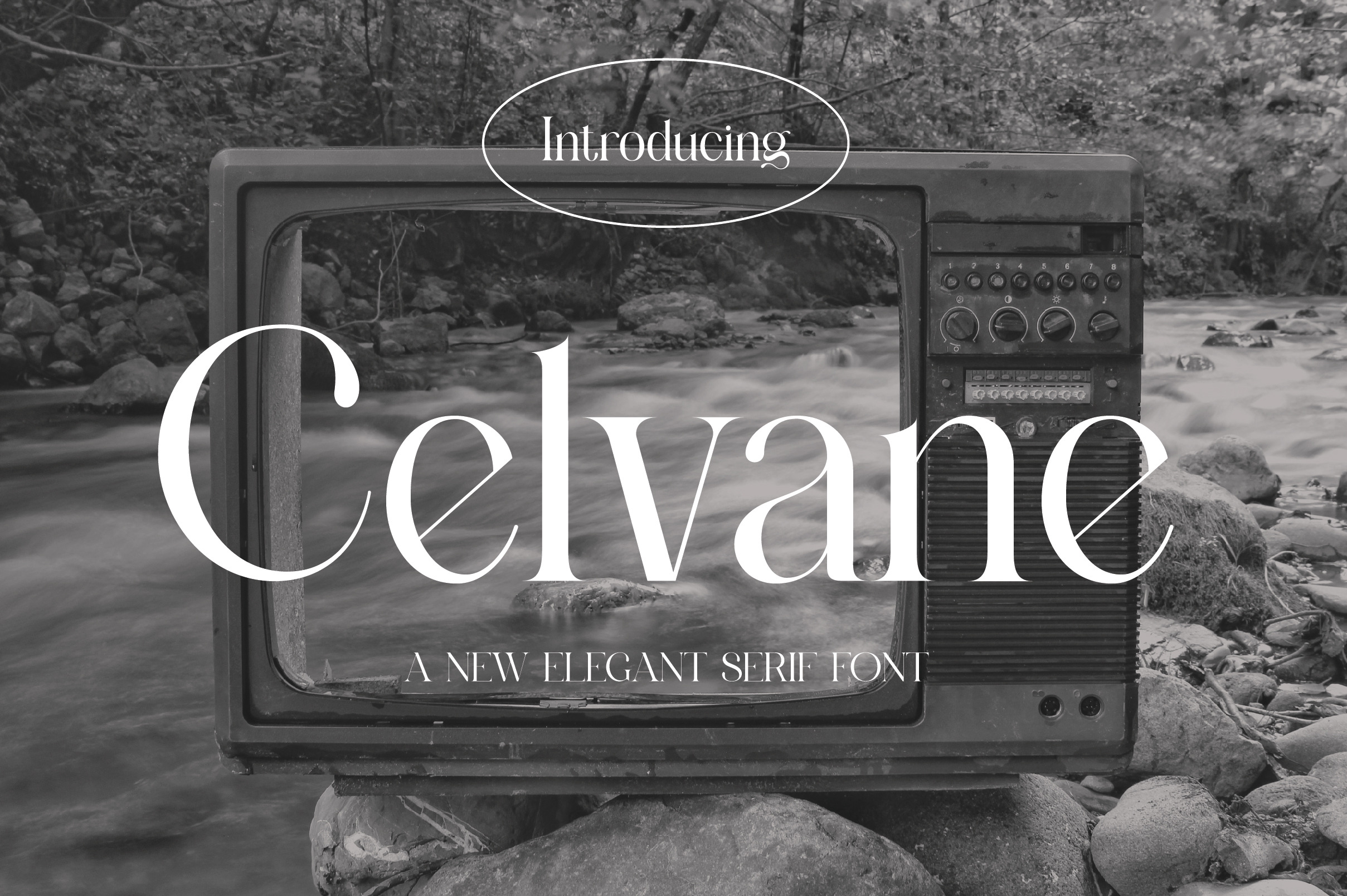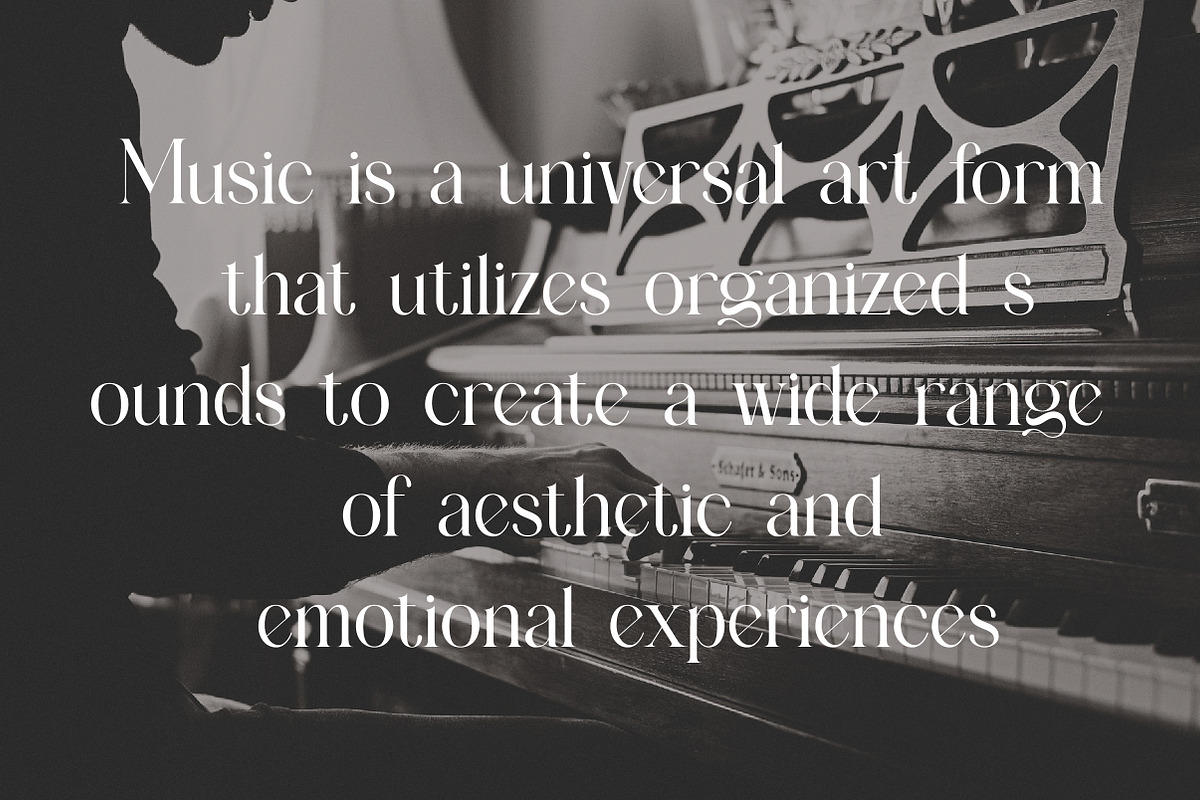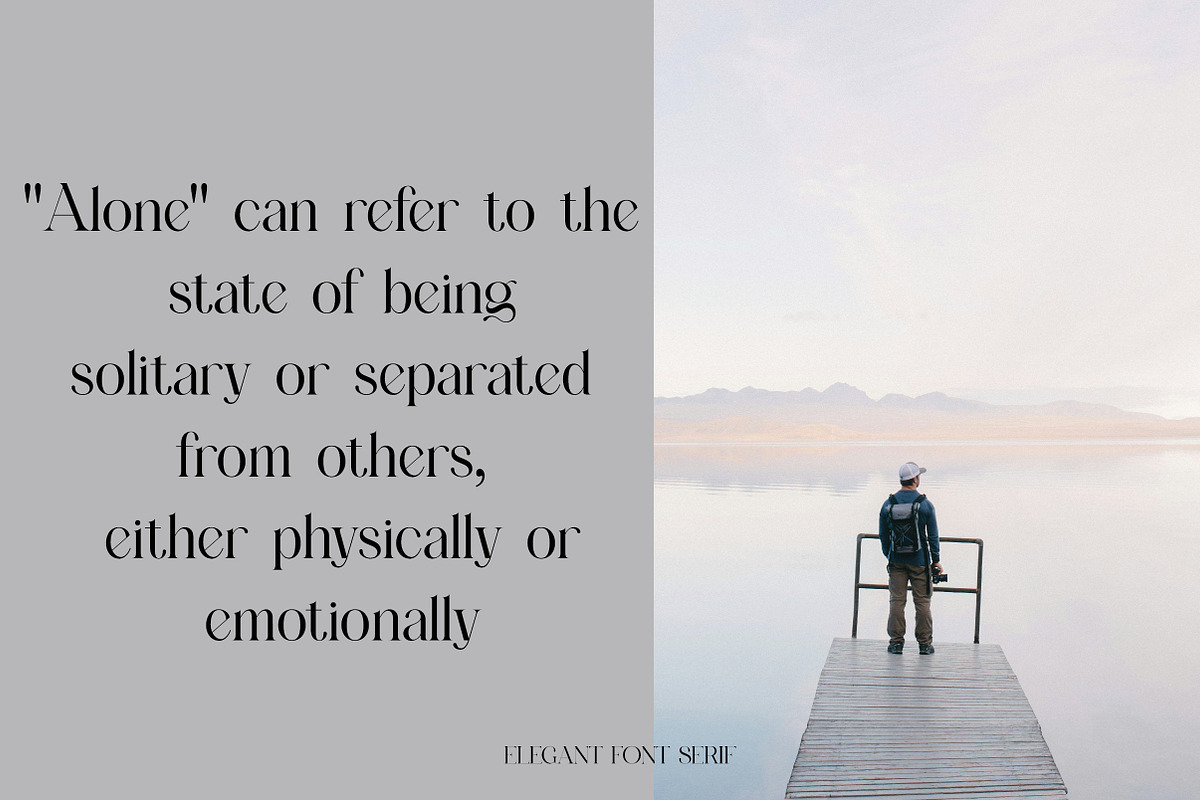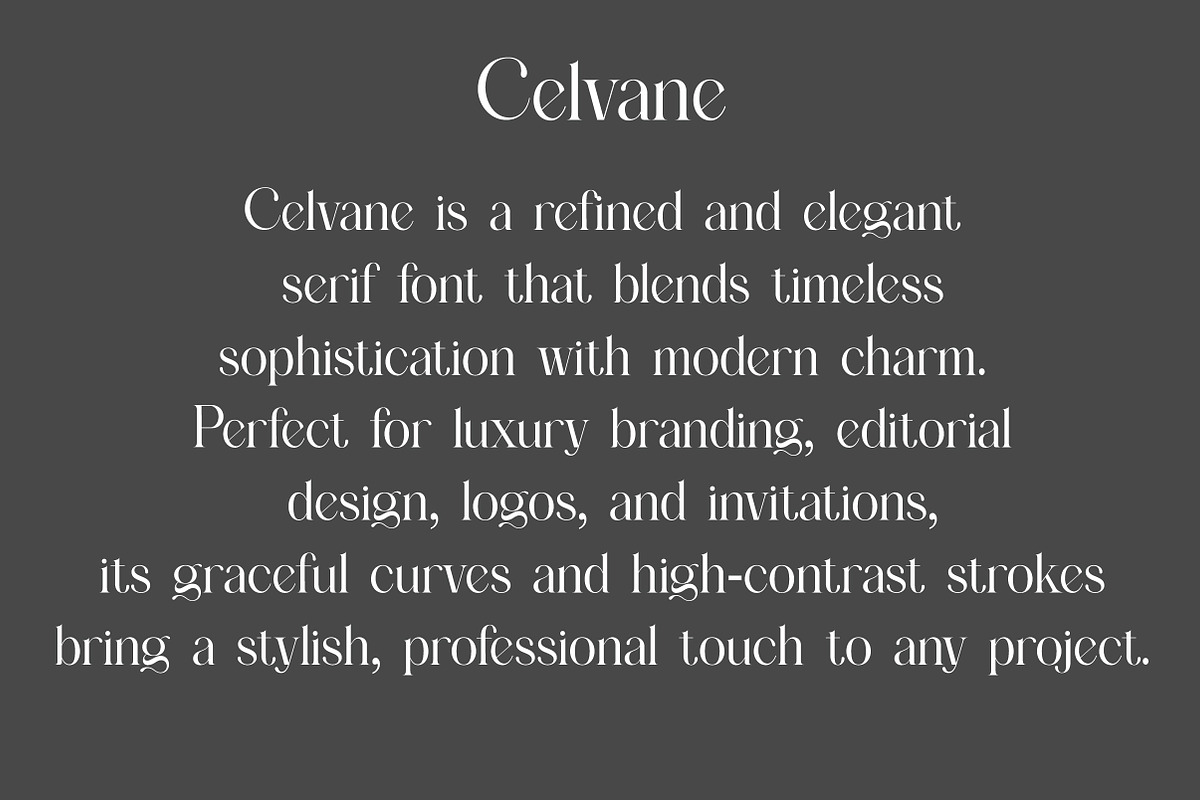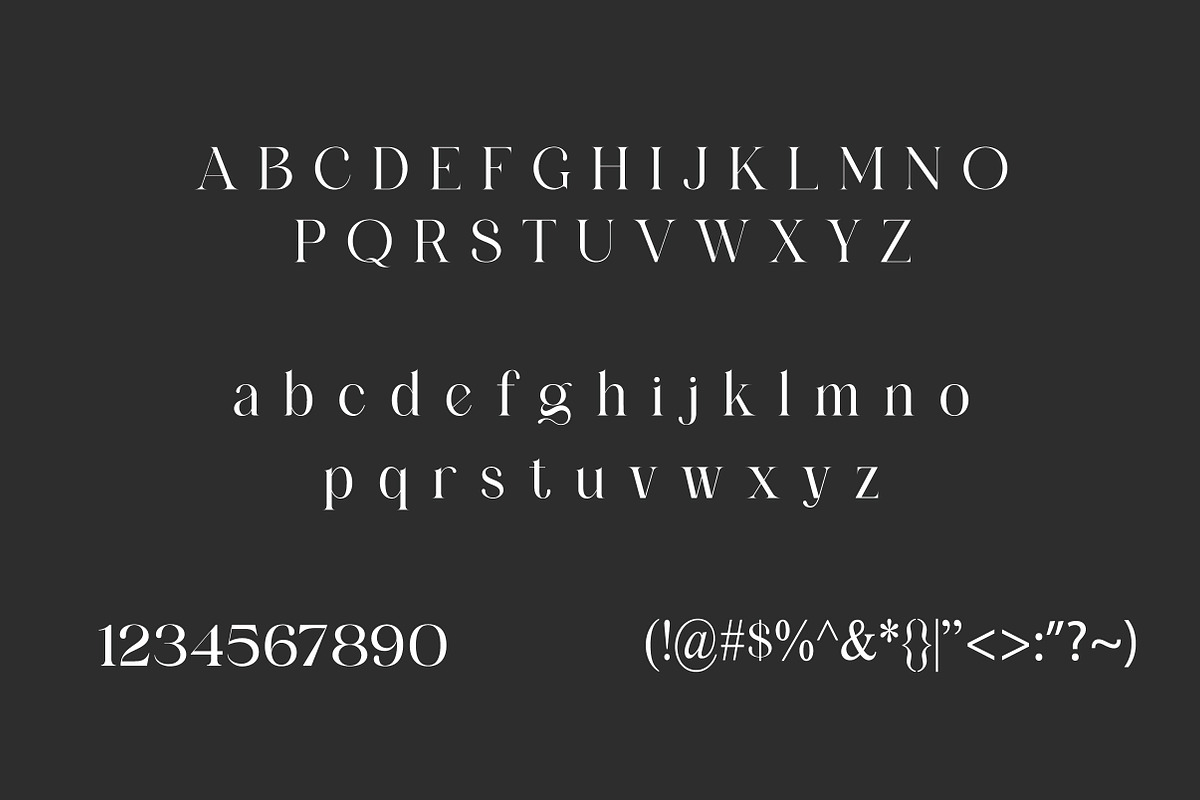
Celvane | Classic Serif Typeface
Celvane is a refined and elegant serif typeface designed in a clean Regular style. With its timeless proportions, smooth curves, and carefully crafted serifs, Celvane adds sophistication and clarity to any design.
Whether you're working on branding, editorial layouts, packaging, invitations, or logos, Celvane delivers a graceful yet confident tone. Its versatile design is equally effective for both display headlines and longer text content, striking the perfect balance between tradition and modernity.
Uppercase & lowercase letters
Celvane is the ideal serif choice for designers who value classic elegance with a clean, modern finish.